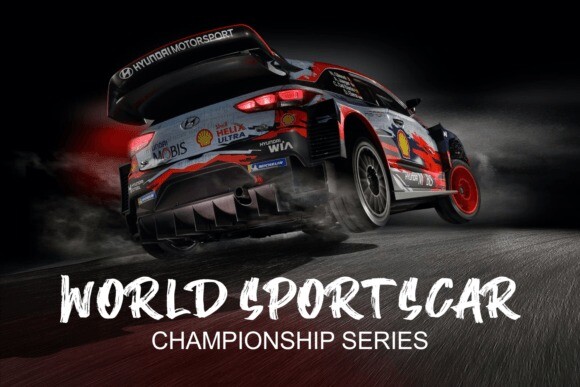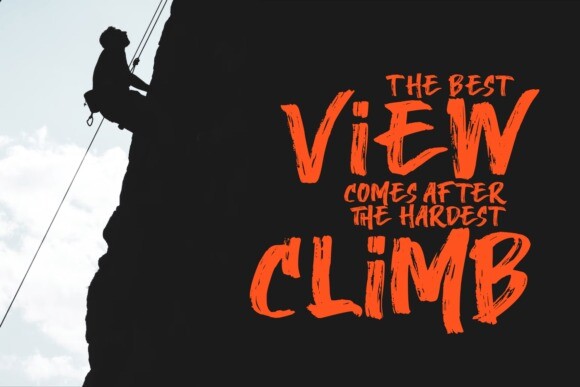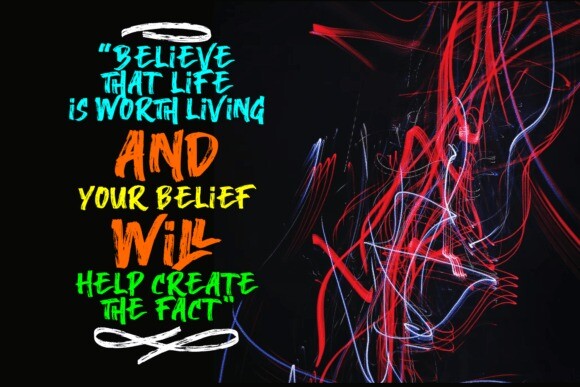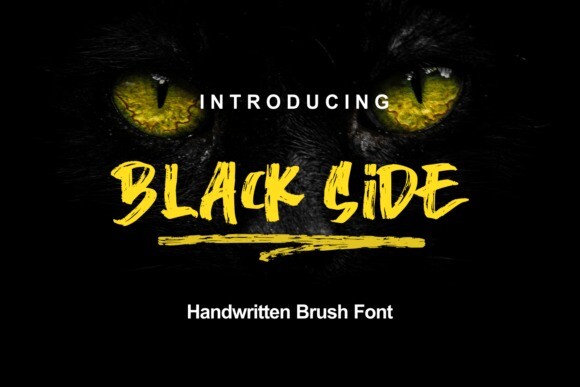
Black Side Font
Black Side Font is an extraordinary handwritten font created with bold, untamed strokes using ink and a bamboo pen. This font is a bit more unique because the lowercase style uses uppercase but there are some with lowercase style. Equipped with a ligature, and a wash to be used as a complement or sweetener to the design you make. very suitable for use in various designs, such as headers, websites, clothing, products, even for writing quotes. Congratulations on exploring your design using black side fonts.